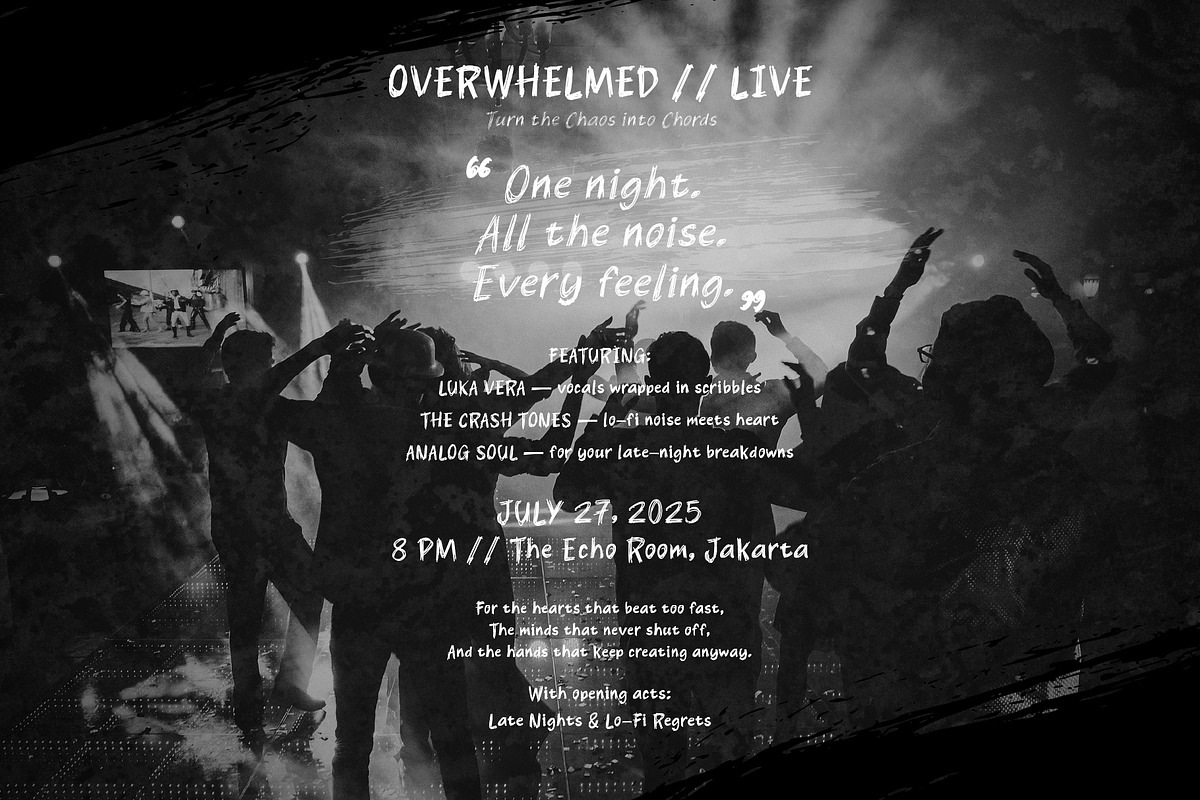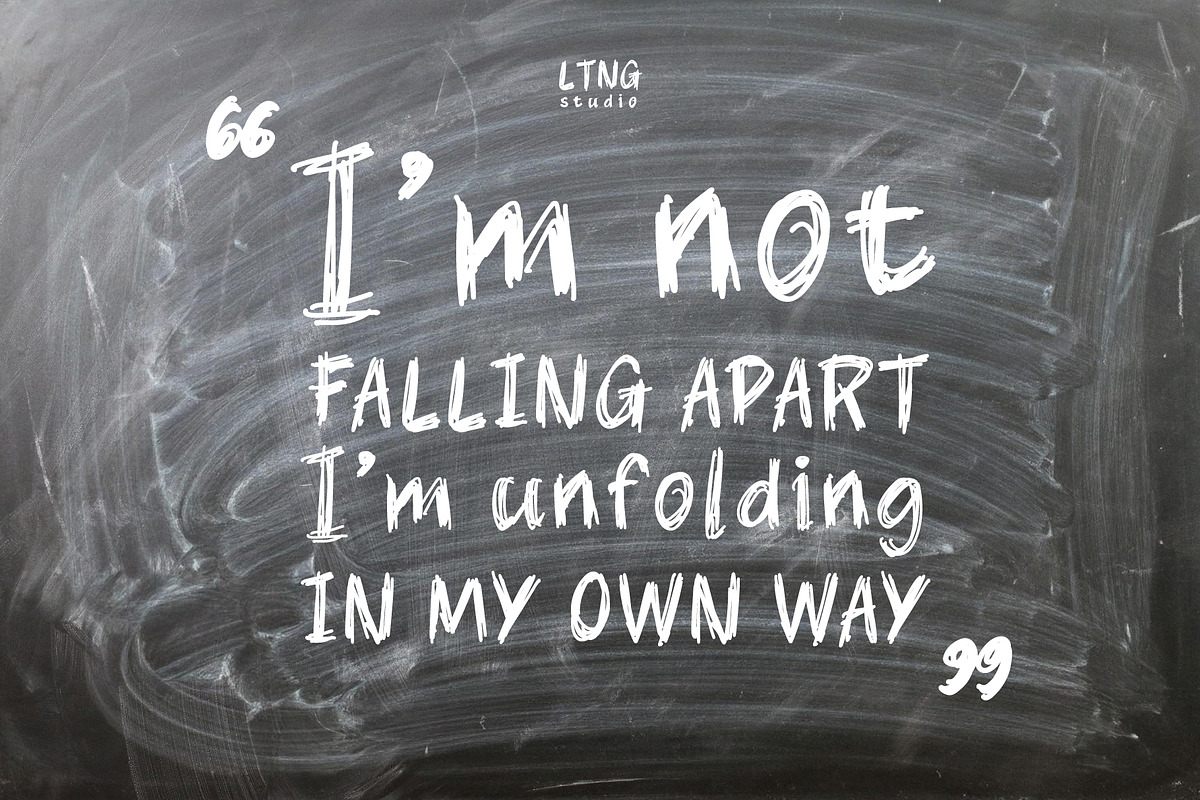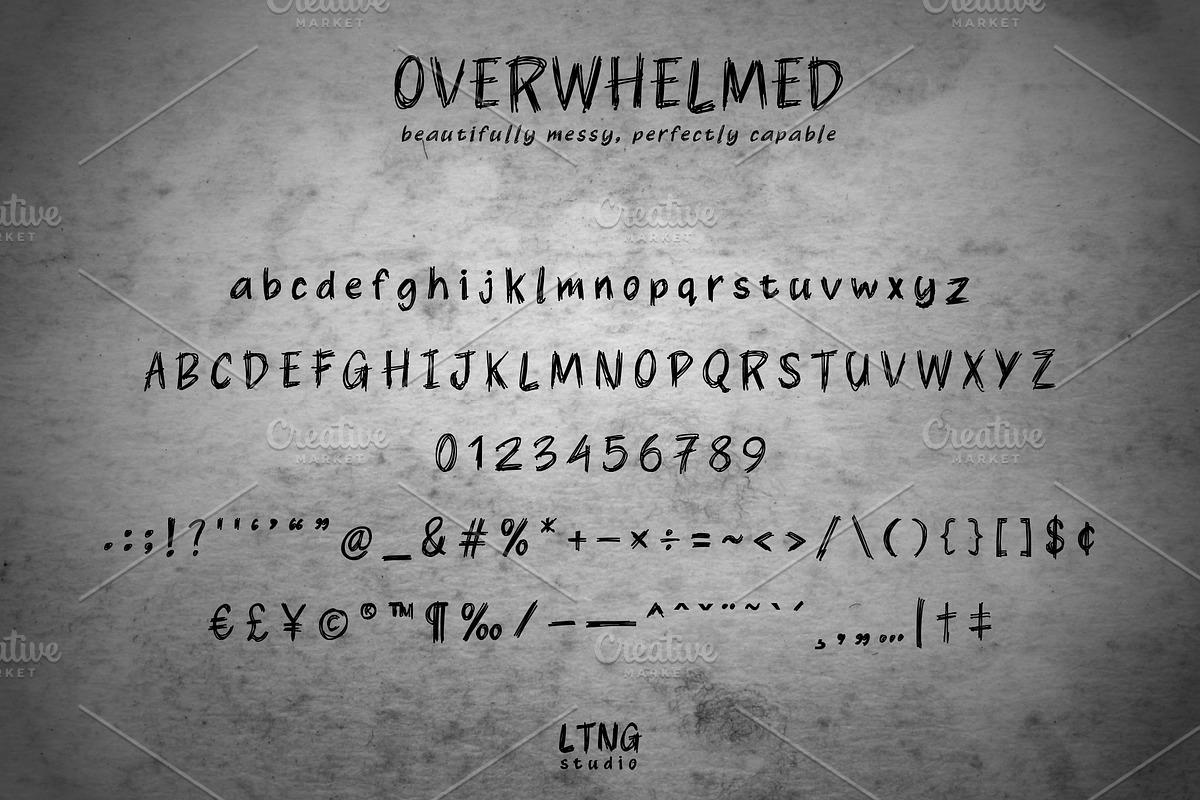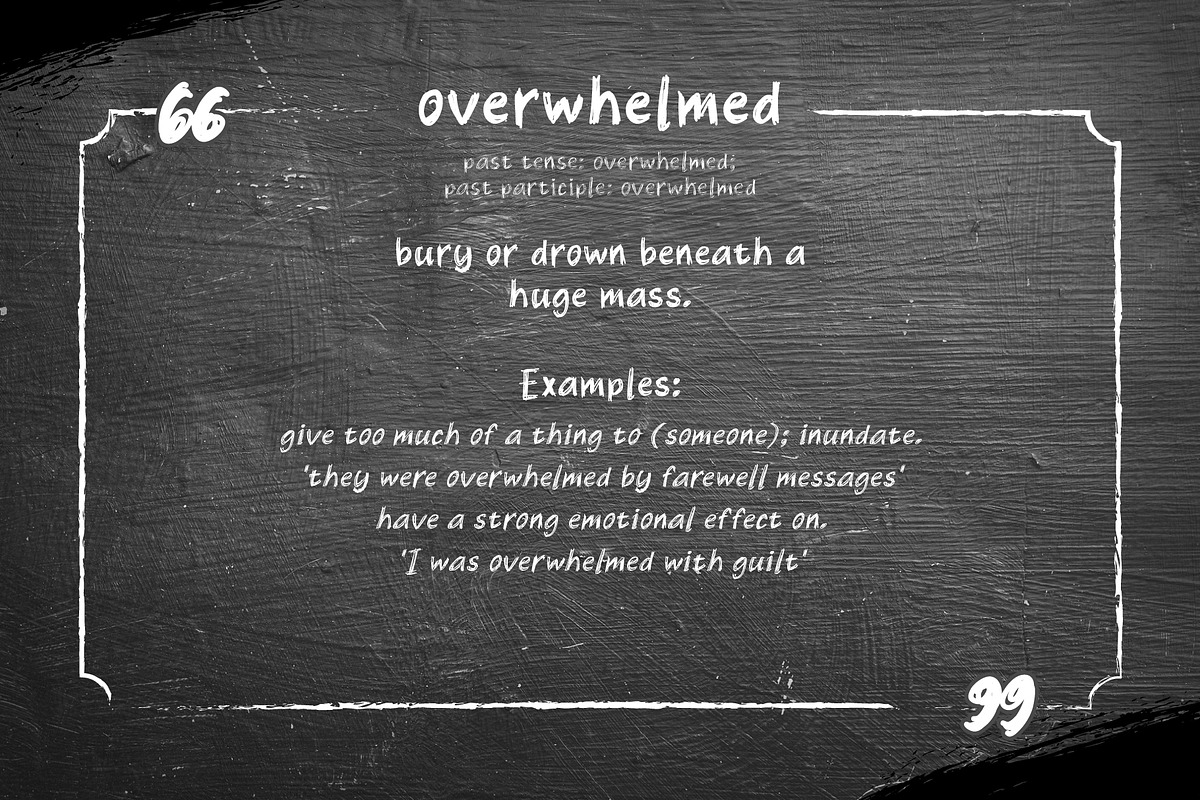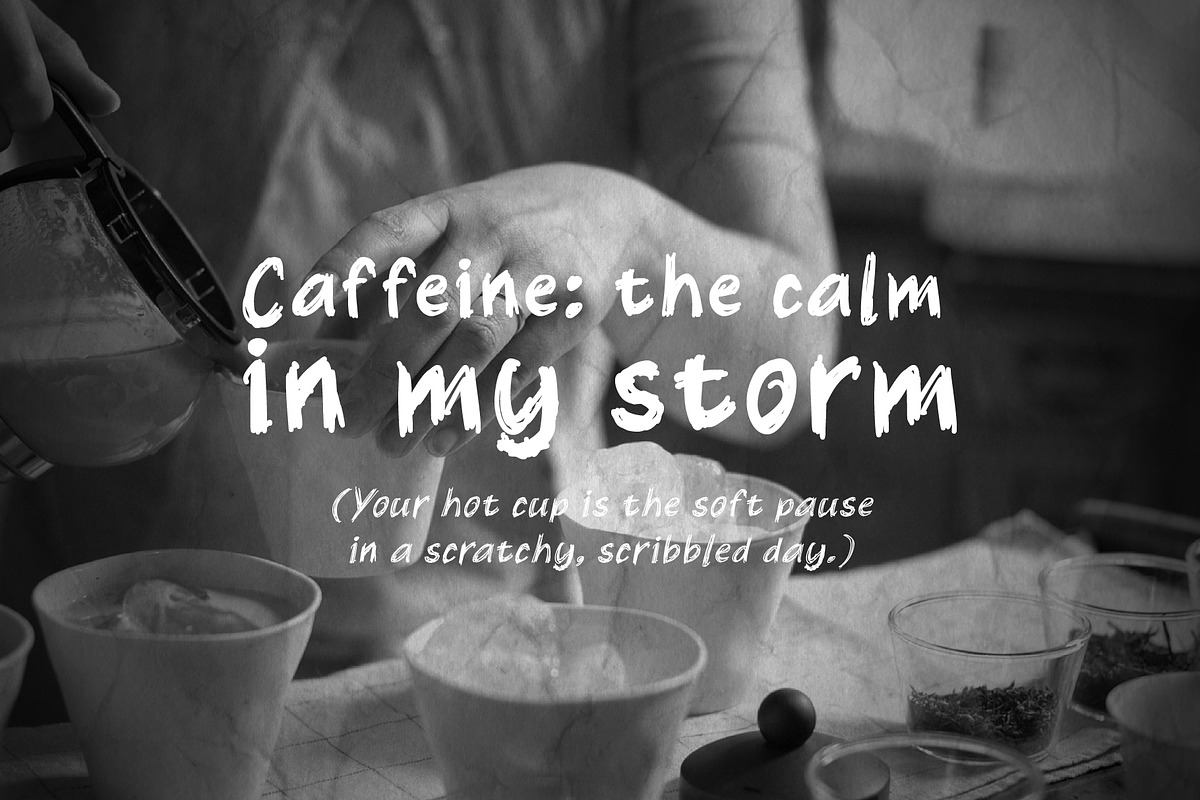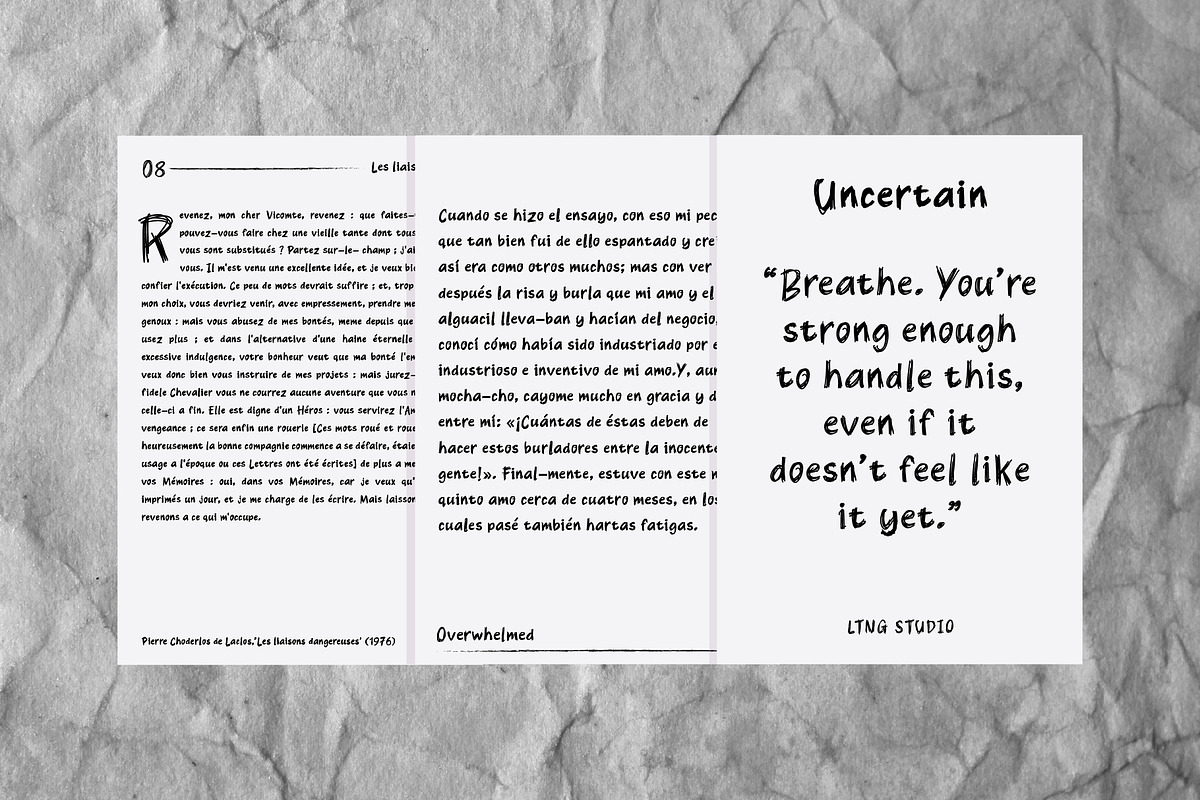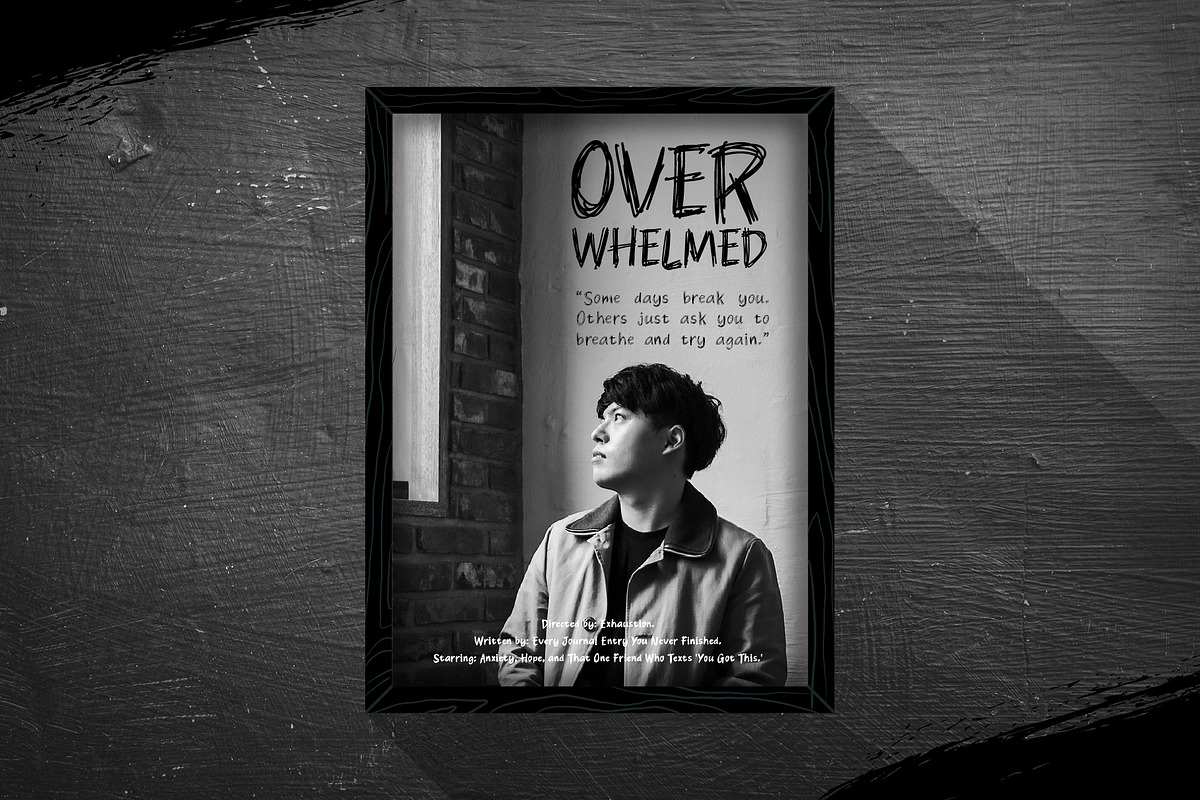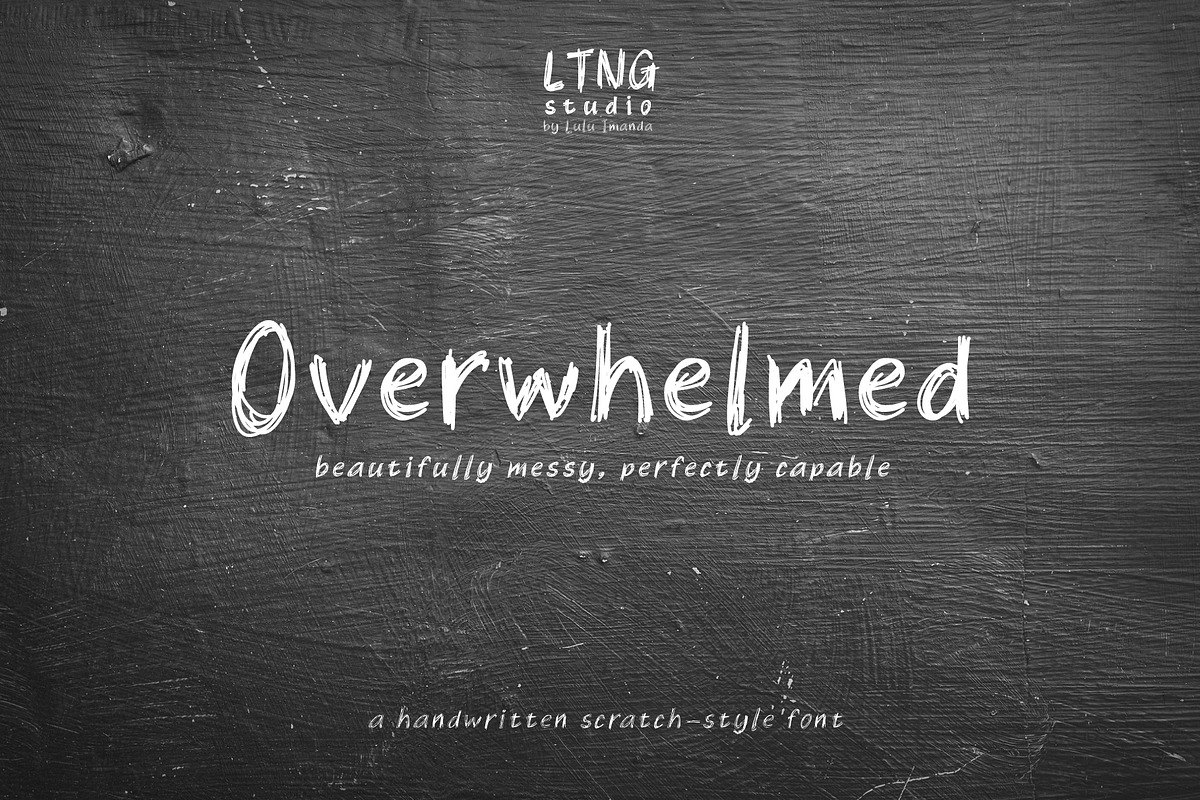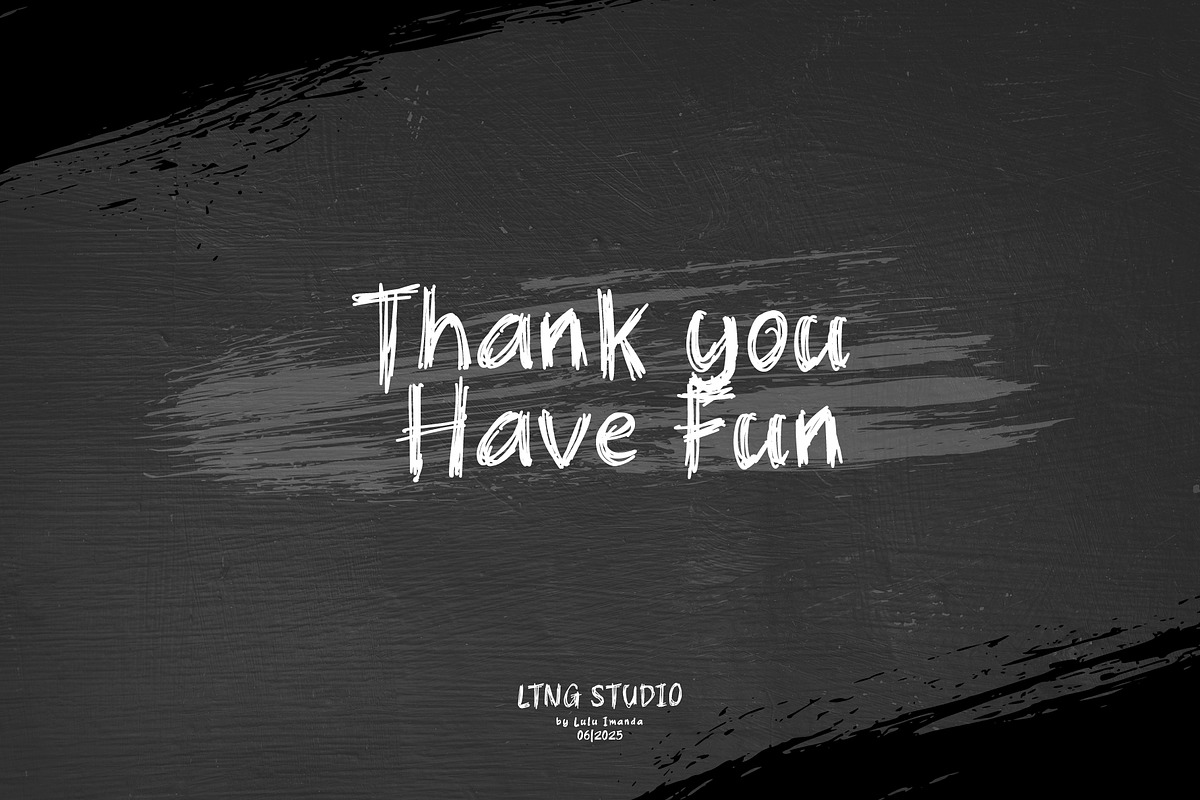
Overwhelmed handwritten
Overwhelme-a handwritten scratch-style font Overwhelmed is a hand-drawn font full of feeling — scratchy, messy, and a little chaotic — just like those days when everything piles up. But even through the tangled lines and scribbled strokes, there’s clarity, movement, and strength. It’s a reminder that it’s okay to feel overwhelmed — what matters is that you keep going.
With its expressive, almost raw texture, this font brings emotion and honesty to your design. Perfect for bold quotes, mental health messages, zines, journal pages, and storytelling that leans into the real and the human. Overwhelmed says, “Yeah, things get messy — but I’ve got this.”